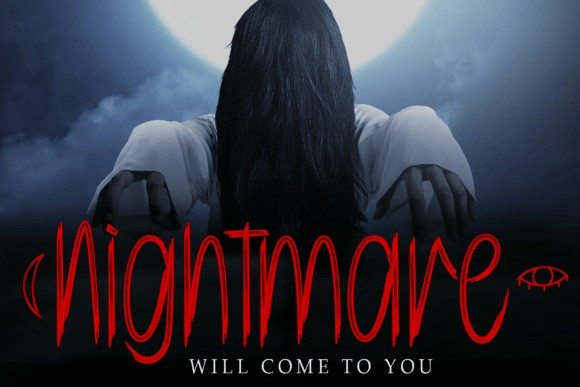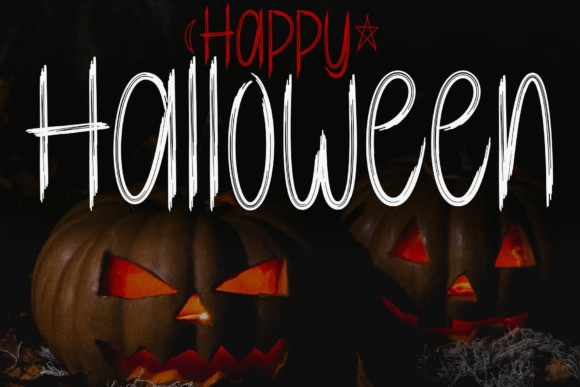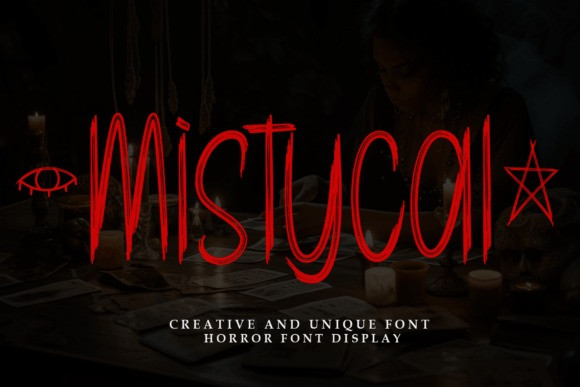
Mistycal Brush Font
Mistycal Brush Font is a cool and slightly scary handwritten font. Add it to your horror-themed projects and you will be amazed by the generated outcome!